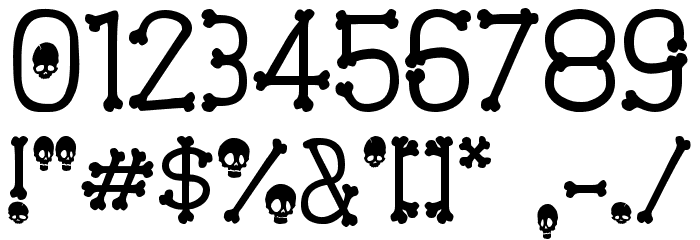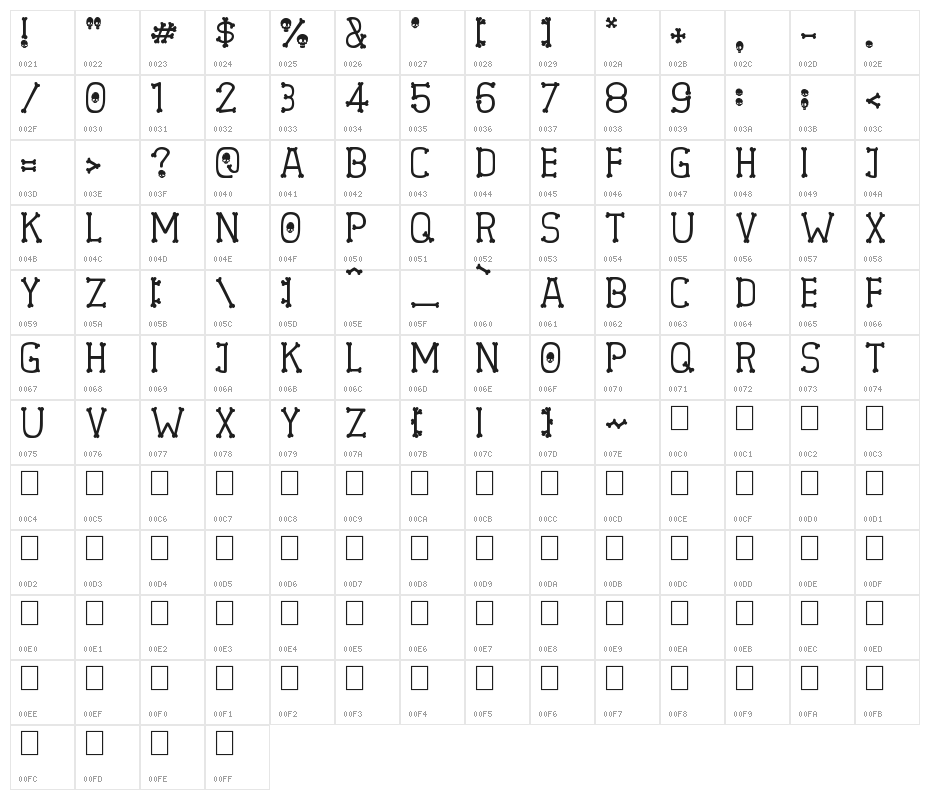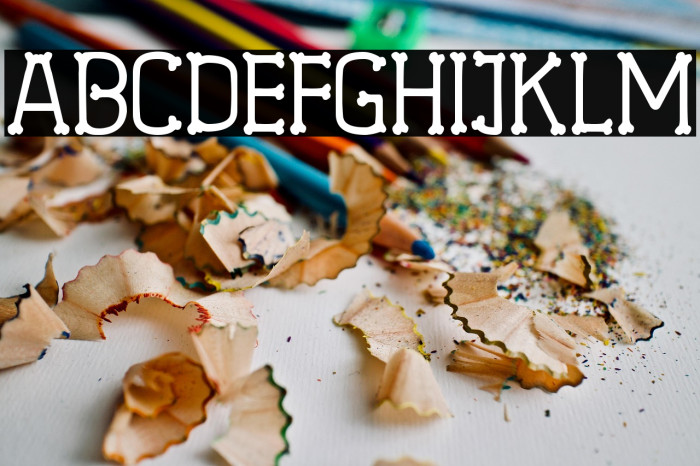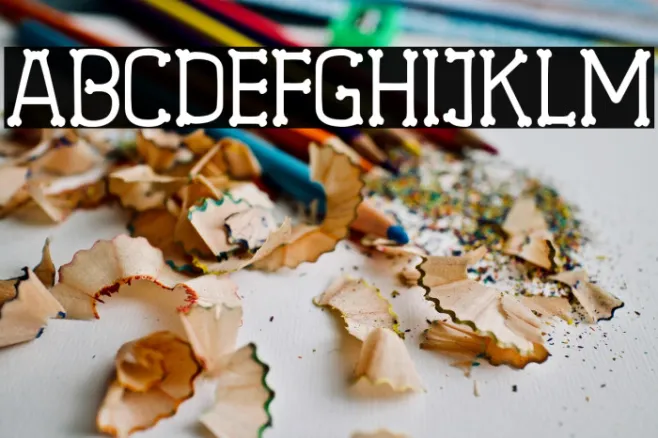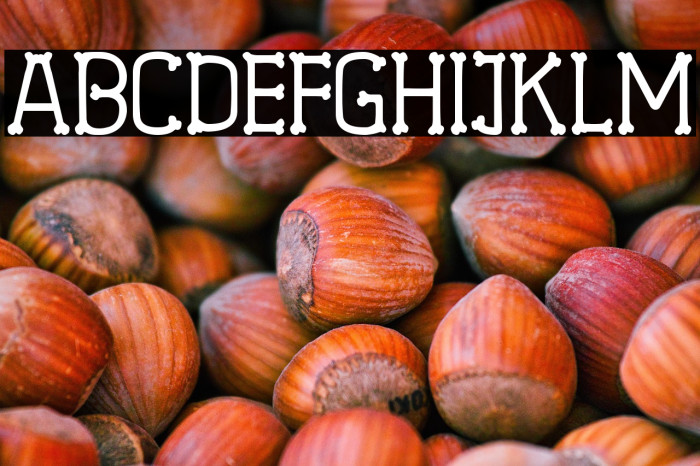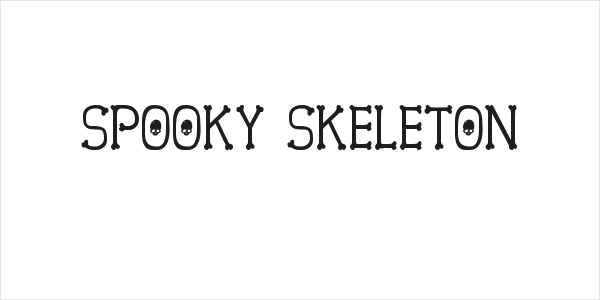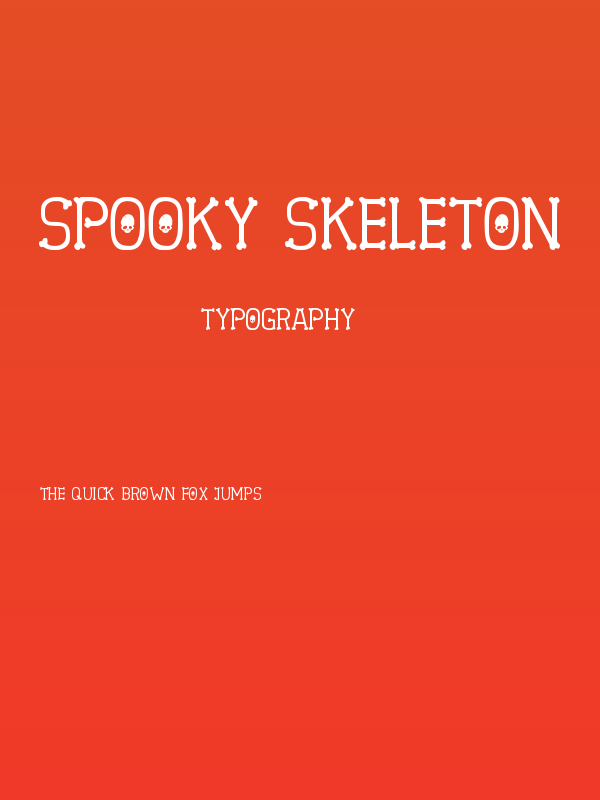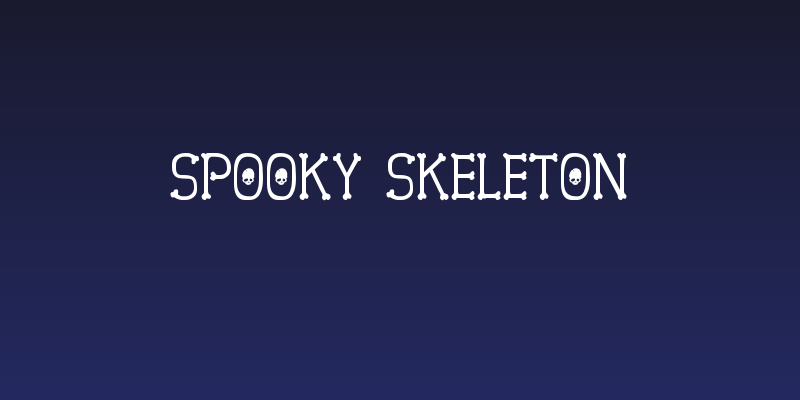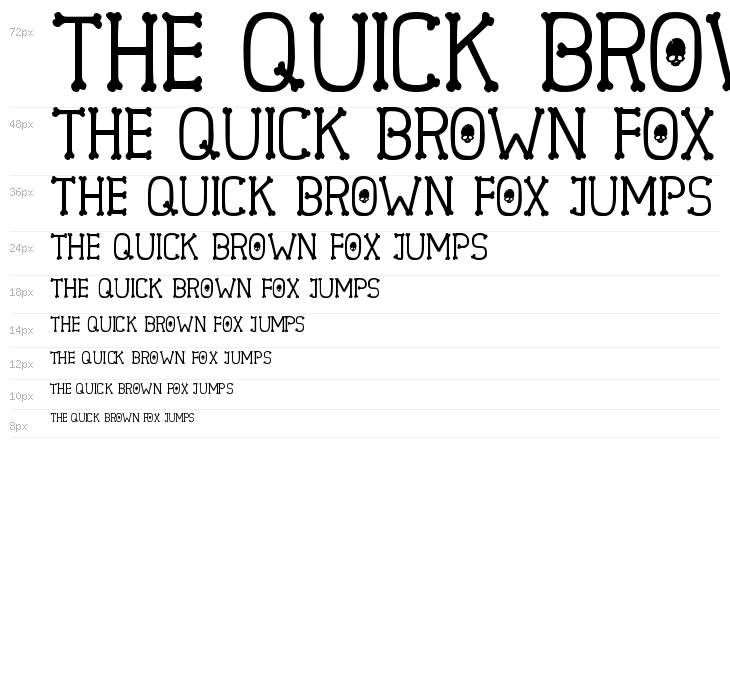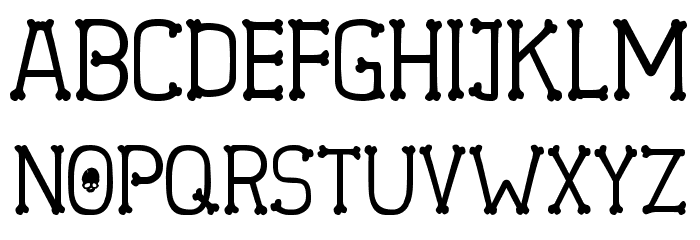
Spooky Skeleton Font
Spooky Skeleton Description
This font features a playful and spooky design, perfect for Halloween-themed projects. Each character is crafted with bone-like structures, giving it a skeletal appearance. The uppercase and lowercase letters maintain a consistent style, with rounded edges and unique embellishments that resemble joints or skulls. Numbers and special characters follow the same theme, incorporating elements like skulls and bones to enhance the eerie aesthetic. The font's distinct design makes it ideal for decorative purposes, capturing attention with its bold and thematic presentation.